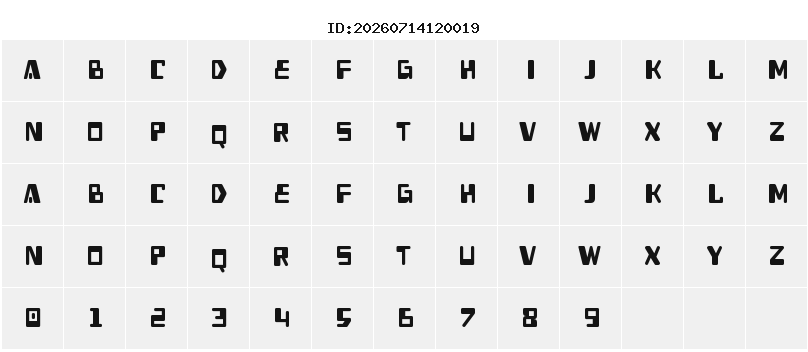
• Font Name: Heavy Data
About Heavy Data.ttf
Heavy Data.ttf is a modern, elegant sans-serif font designed for ultimate readability and visual harmony. Perfect for branding, headlines, web design, and print materials.